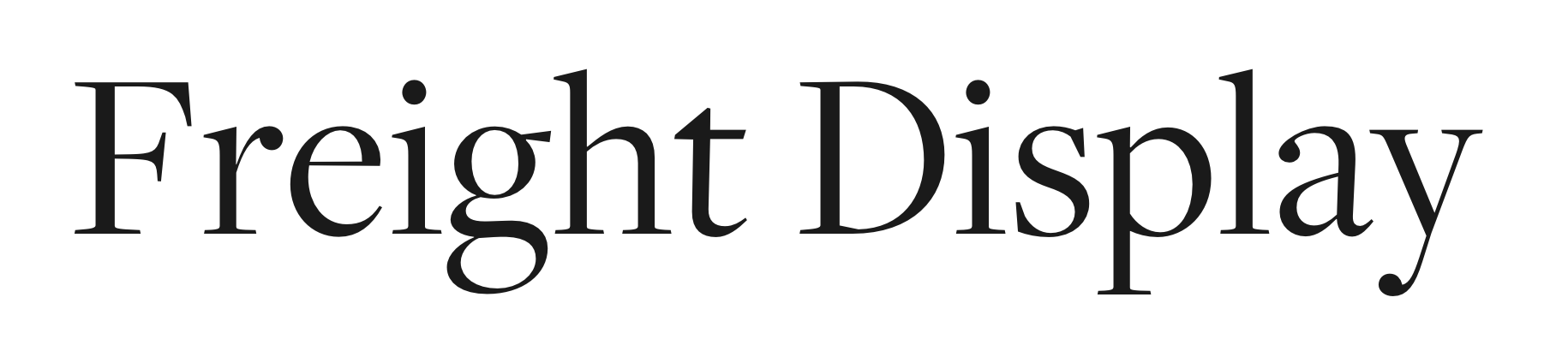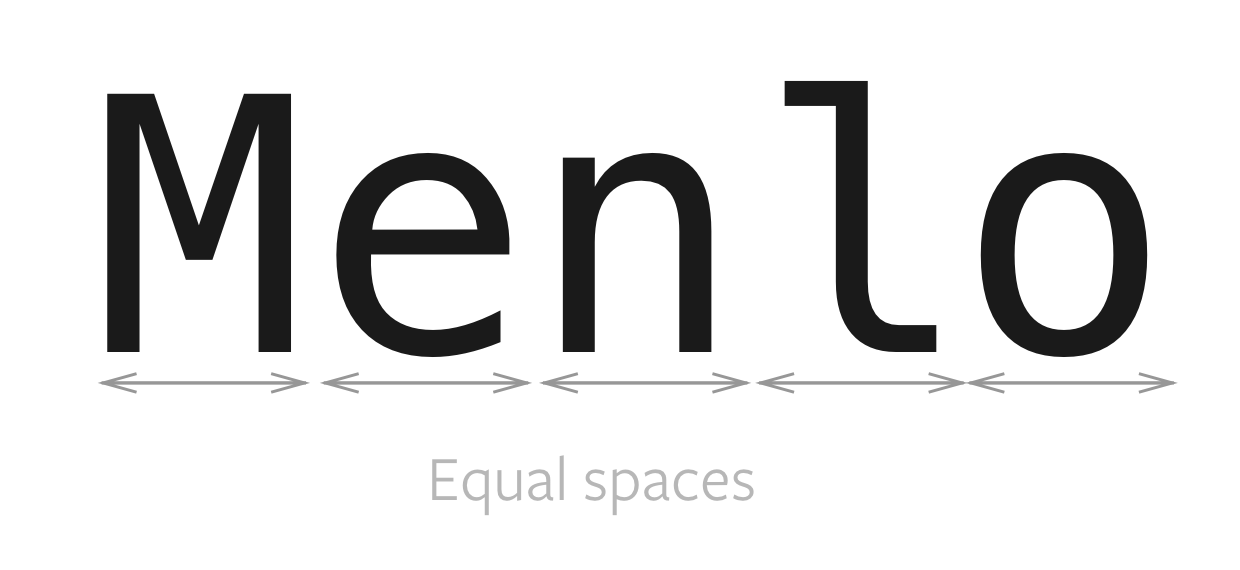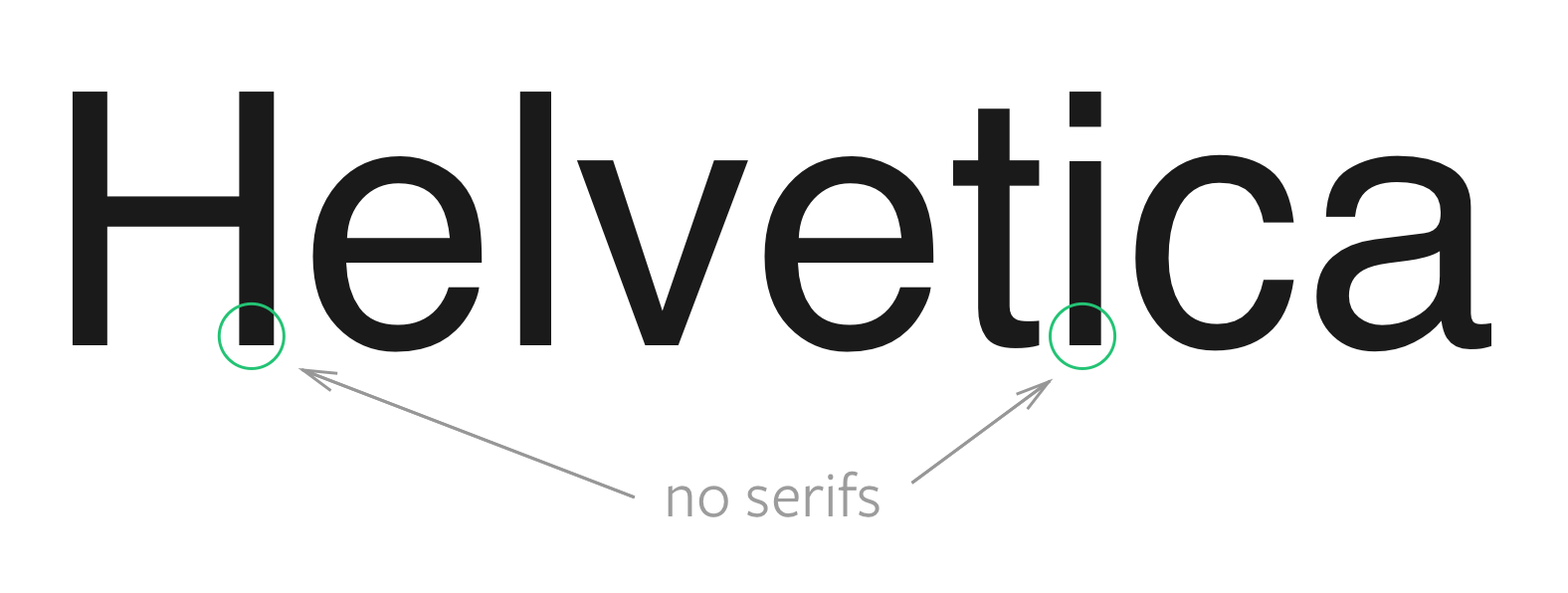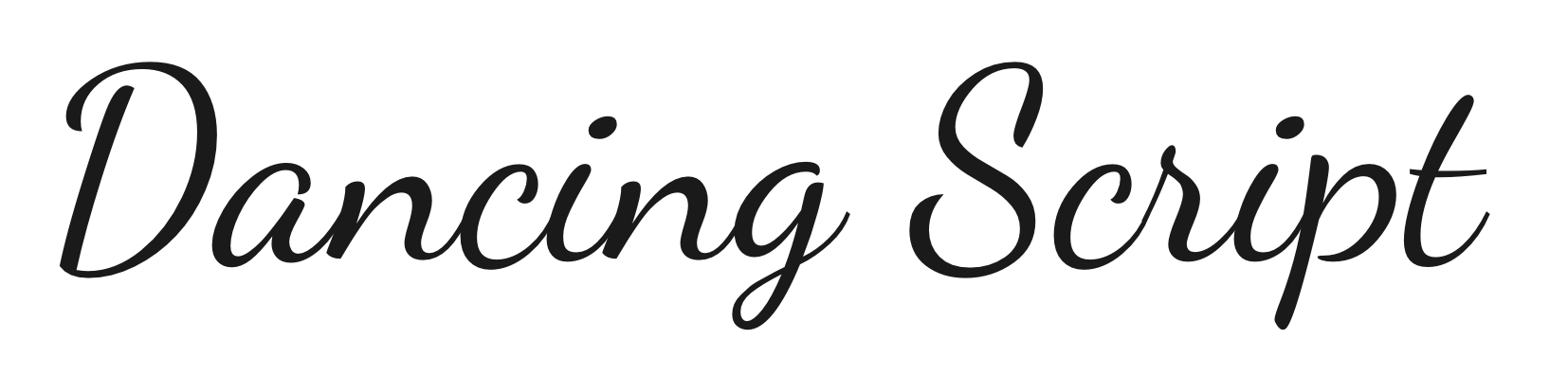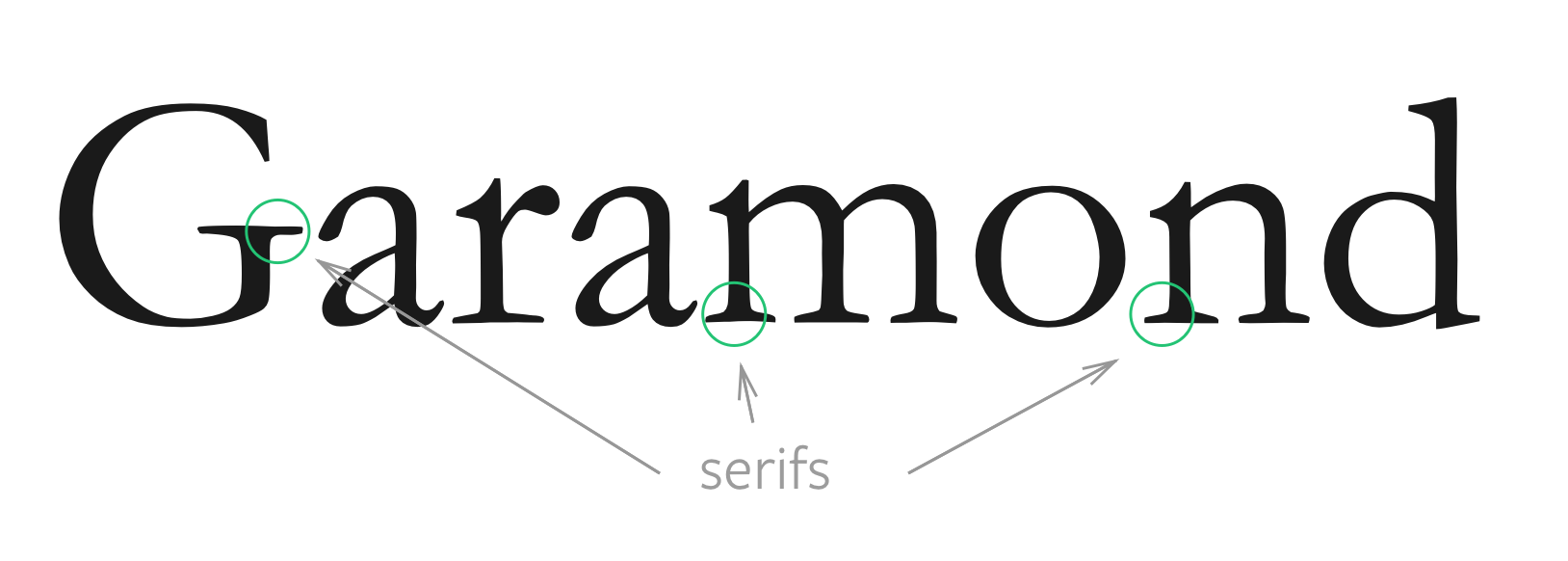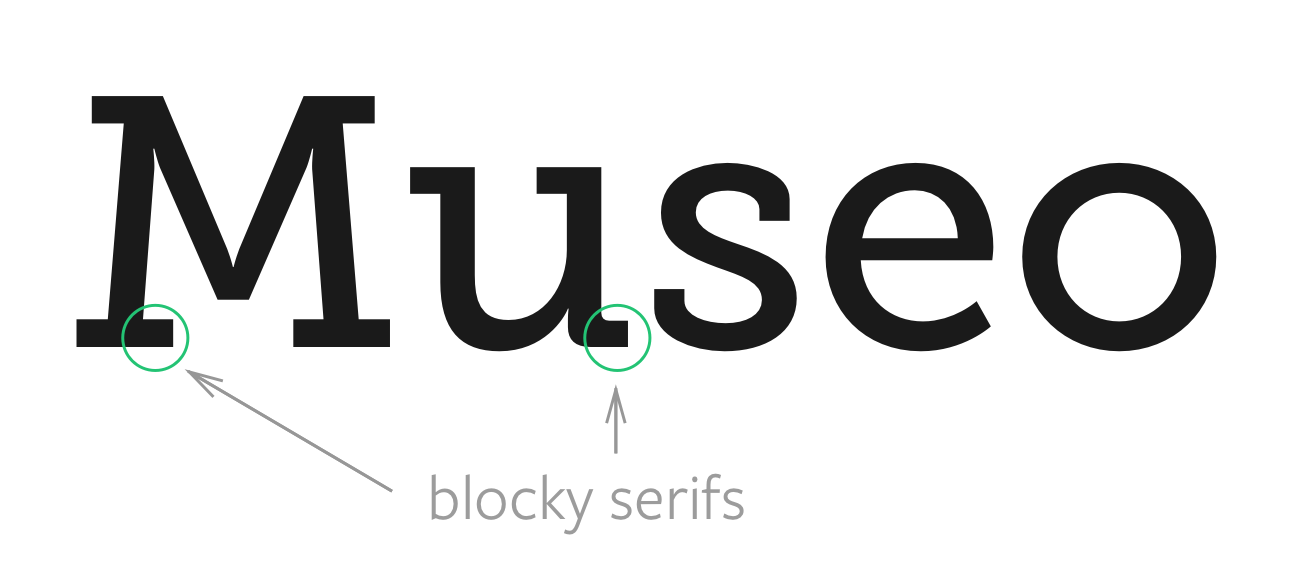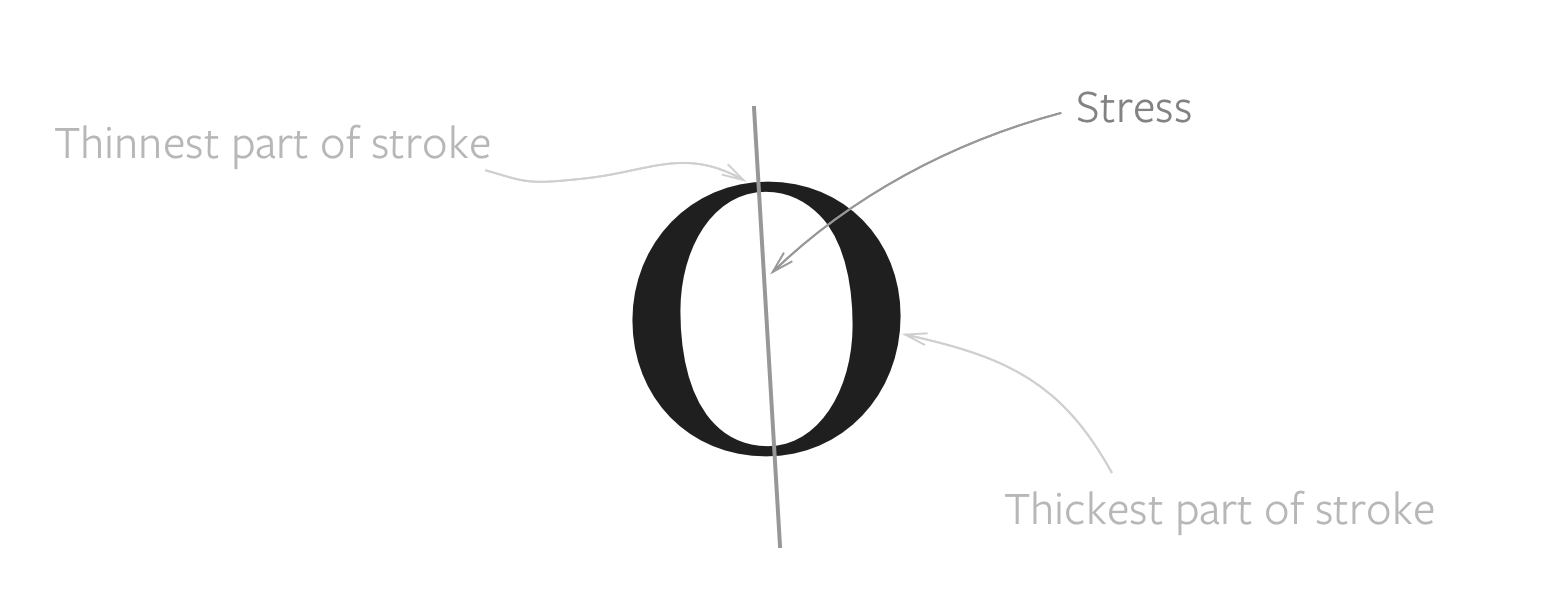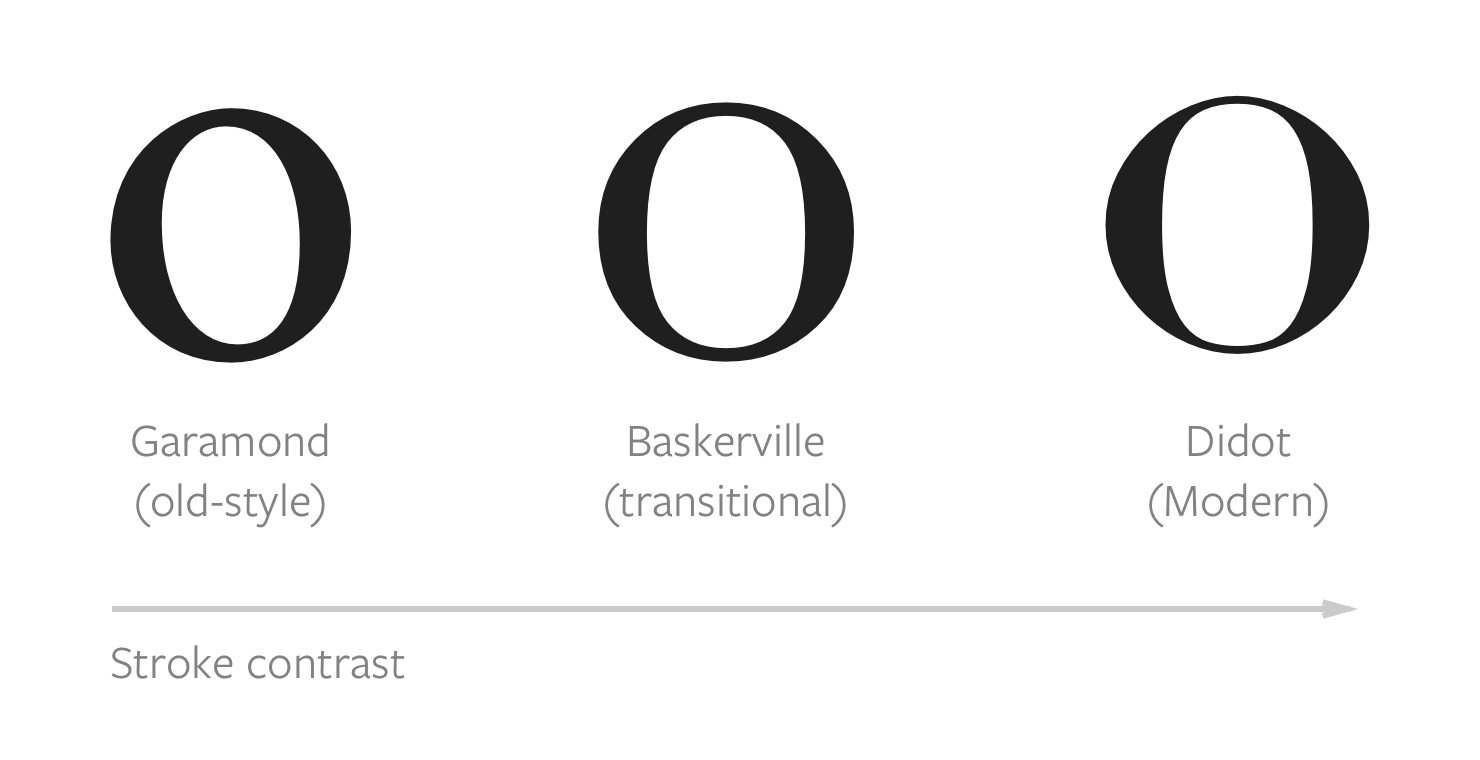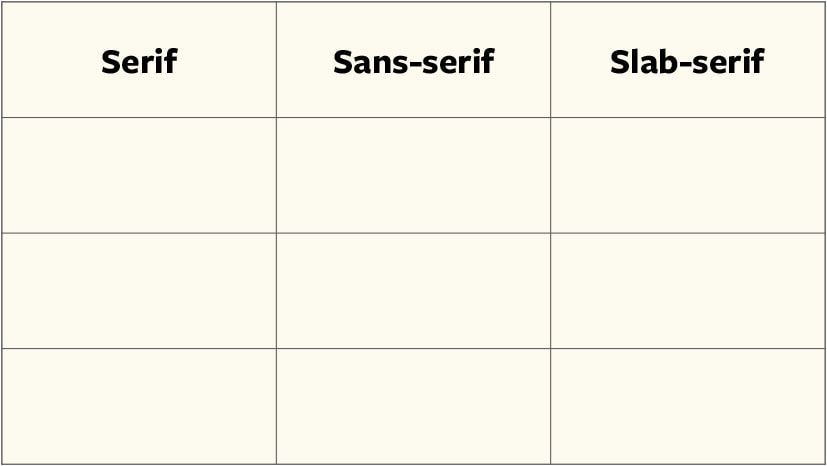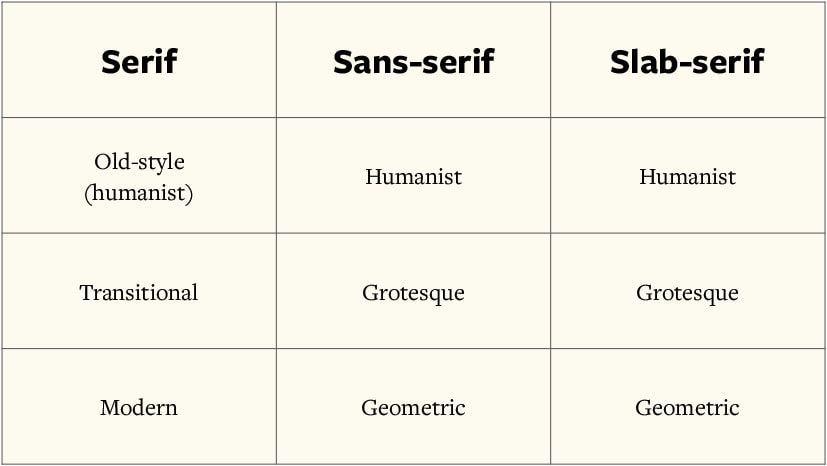
How to pair typefaces
The act of choosing two typefaces is probably the first (and often most difficult) task you do when creating a new design. Many people get stuck here, myself included.
Recently, I discovered a simple method to pair typefaces effectively and I’d love to share them with you. (Hint: it’s a 3×3 grid).
There’s one prerequisite to use this 3×3 grid (which I will reveal shortly) – knowing how to categorize typefaces. So, let’s start there.
Categorizing typefaces
On a broad level, typefaces can be categorized into the six categories. They are:
1. Sans-serif
2. Serif
3. Slab-serifs (or Egyptians)
4. Monospace
5. Script (or Cursive)
6. Display (or Decorative)
You can split typefaces into the first three categories by looking at the style of the serif.
If the typeface contains no serifs, they fall into the sans-serif category. (sans means without). Examples of sans-serif typefaces include Helvetica and Gill sans.
Image of Helvetica typeface that contains no serifs
Helvetica doesn’t contain any serifs.
If the typeface contains serifs that look blocky, they fall under the slab-serif category. (slab means a large thick block). Slab-serifs are also called Egyptians even though there’s no relationship between the serifs and Egyptian writing. Examples of slab-serifs include Archer and Museo Slab.
Image of Museo Slab typeface that contains blocky serifs
Museo Slab has blocky serifs.
Any other typeface that contains serifs fall under the serifs category. Examples include Garamond and Georgia.
Image of Garamond typeface that contains serifs
Garamond has serifs, but they’re not blocky.
Monospace typefaces are no strangers to us developers. They’re typefaces whose characters occupy the same amount of horizontal space. They’re often used in tabular data and code. Examples include Menlo and Monaco.
Image of Menlo that shows each character taking up the same amount of space
Each letter in Menlo takes up the same amount of space.
Script (or cursive) typefaces are often calligraphic in nature. They’re often used for short headlines, invitations and expressive text. Examples include Dancing Script and Lobster.
Image of Dancing Script
Dancing Script is a script typeface.
Finally, display typefaces are typefaces that are only used for large headlines. Many display typefaces are serif and sans-serif versions that are specially tweaked to look good at large sizes. Display typefaces also include ornamentals and decoratives, which can come in all sorts of form and styles. Examples include Freight Display and Abril Fatface.
Freight Display is a display typeface.
Now you know how to classify typefaces into six major categories, which is great! Unfortunately, these major categories are too broad.
To pair typefaces effectively, we often have to drill in deeper into the subcategories. We’re only going to look at sans-serifs, serifs and slab-serifs as we drill deeper since most typeface choices are made there.
Subcategorizing sans-serifs, serifs and slab-serifs
Things begin to get confusing when you begin to subcategorize. There’s a lot of subcategories, including but not limited to humanist, neo-humanist, old style, grotesque, neo-grotesque, transitional, geometric and modern.
Remembering the names of these subcategories, differentiating between them and correctly placing typefaces in them are three major challenges people face, myself included. After much research, I noticed you can group these subcategories into a simple 3×3 grid.
Empty 3×3 table with serif, sans-serif and slab-serif headers
To fill up the 3&times3; grid, we can look at three properties of the typeface. They are:
1. The letterforms
2. The stroke
3. The tilt
For the first two properties, it’s often enough to look at letters e and o. The third one is a layman term I came up with 😂.
Let’s look at each of them.
The letterforms
Pay careful attention to the shape of the letters, especially of the letters e and o. Do they look like circles or squares? If they do, we can immediately classify the typeface as a geometric typeface.
Geometric typefaces contain letterforms that are based off shapes. They look constructed as opposed to handwritten. Because of they seem constructed, they also give off a modern, cool and impersonal vibe.
The geometric subcategory is only applicable to sans-serif and slab-serif typefaces. So, we can fill up the 3×3 grid as follows:
bottom and bottom left slots of the table contians the word: Geometric
Next, we look at the stroke.
The contrast in strokes
The stroke of a typeface is lines that make it up. Pay attention to these lines. Do they vary in size between different parts of the letters?
Image that explains what stroke is
When we look at the stroke of a typeface, we’re only interested to use it to categorize serifs. This is because it’s rare for sans-serif and slab-serifs to exhibit any difference in the stroke.